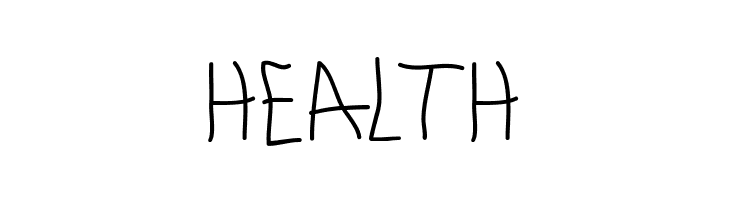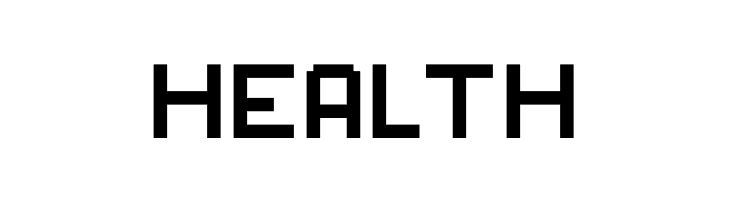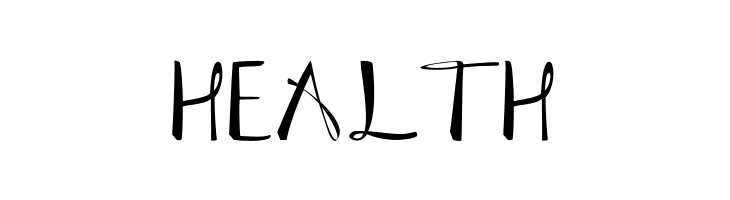
( Antipixel - Julia Martínez Diana - www.antipixel.com.ar/ )
( Camilla Bertoni Berardi - www.behance.net/camillaberf9f1 )
A playful, whimsical handwritten font with elegant loops and swirls.
( Ciusan - Dannie Herdyawan - www.ciusan.com/ )
A bold, hand-drawn font with an artistic and playful style.
( DV82 - David Alcañiz - www.behance.net/dalcaniz )
A modern, geometric font with sharp angles and a futuristic aesthetic.
( Extram Studios - Lewis Bauer )
A bold, pixelated font with a retro, 8-bit digital aesthetic.
( Ferdiansyah - creativemarket.com/ijemrockart )
A fluid, elegant handwritten font with a sophisticated and creative style.
( HvD Fonts - Hannes von Döhren - www.hvdfonts.com )
A bold, lively script font with flowing, handwritten letterforms.
( Katrick Julia )
A playful, handwritten font with dynamic strokes and a whimsical style.
( Lazy Poony )
A flowing, cursive script font with interconnected characters and a polished look.
( OldStudioo - Muhammad Ilham - www.fontdraft.com )
A graceful script font with decorative swashes and flowing cursive style.